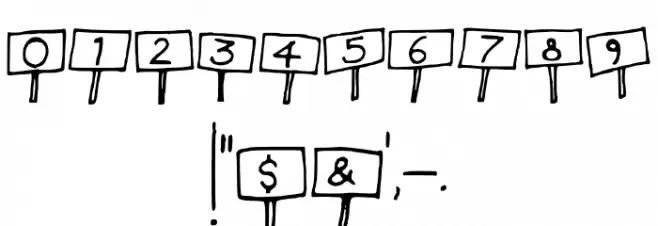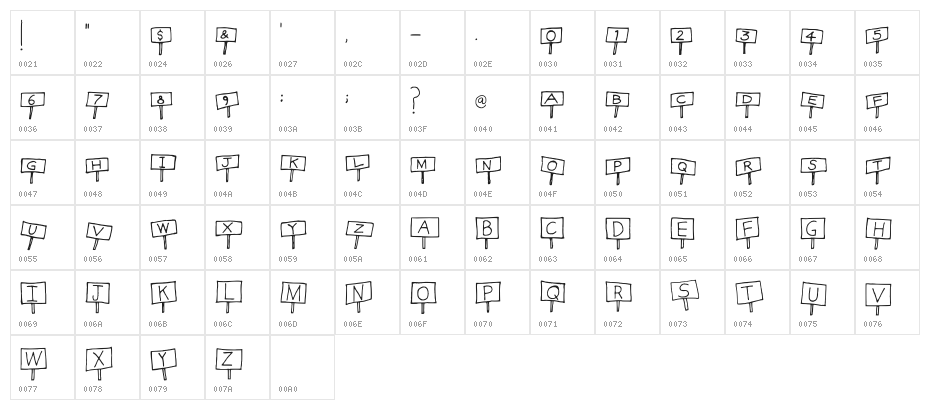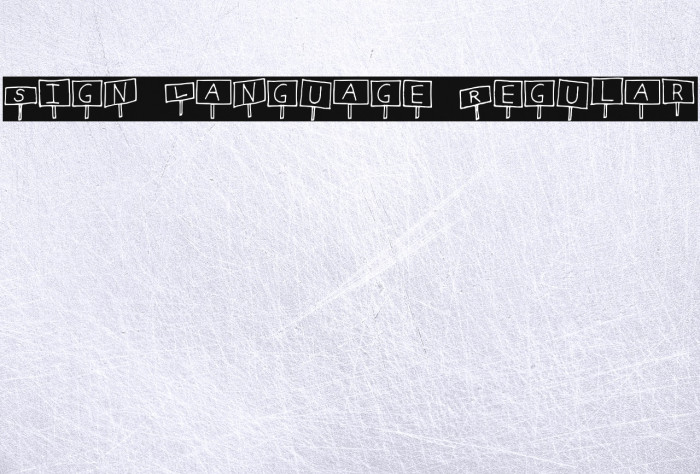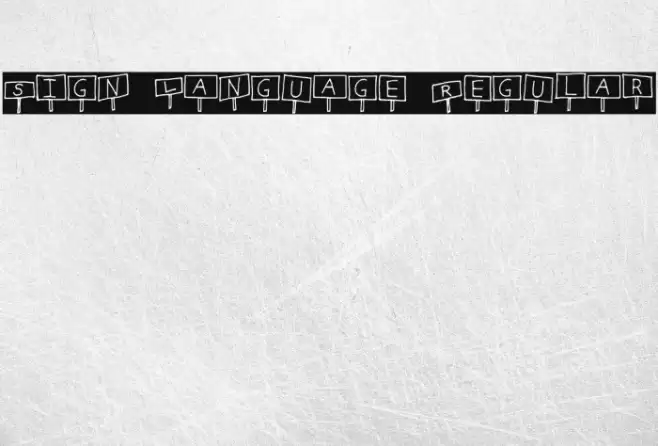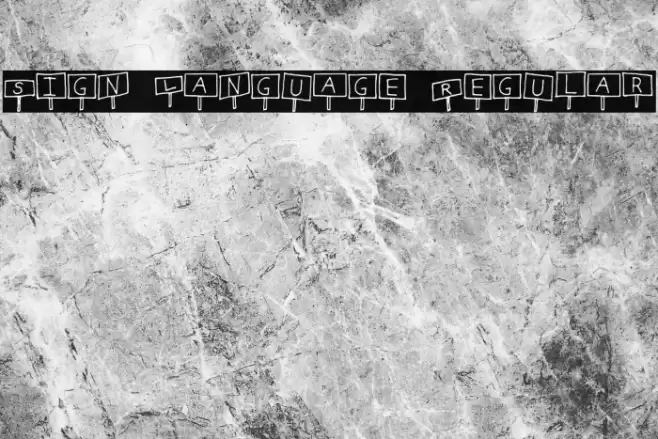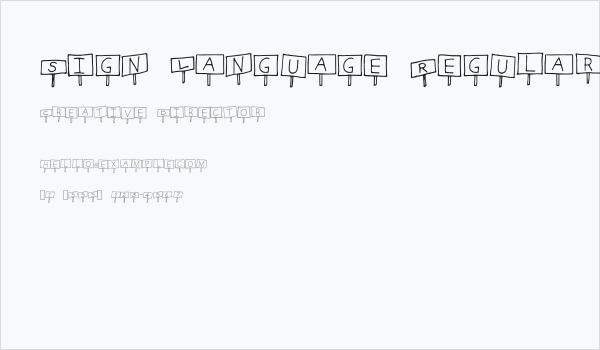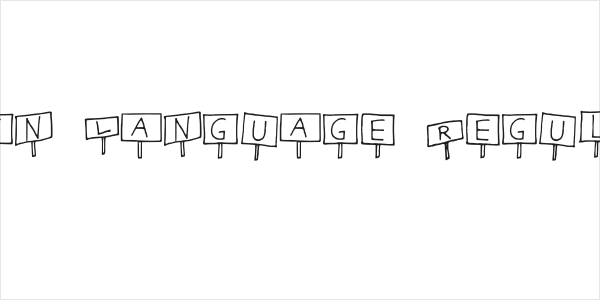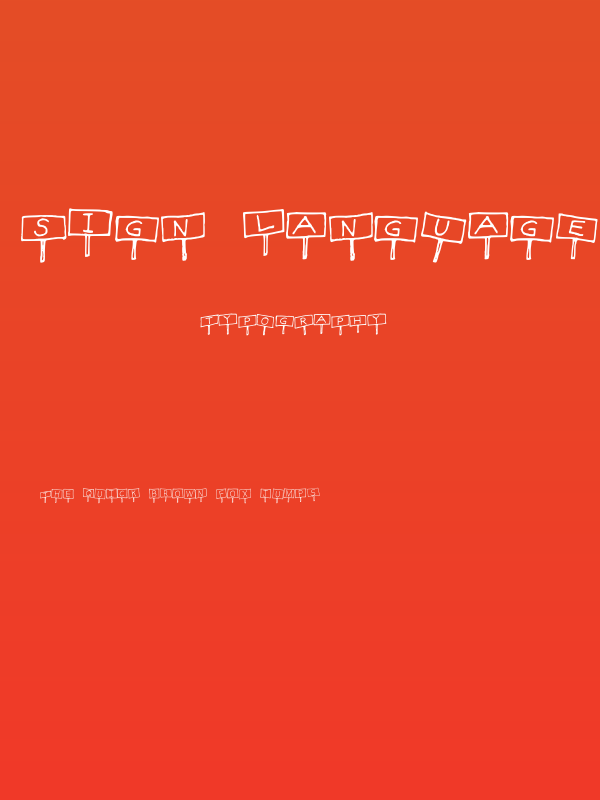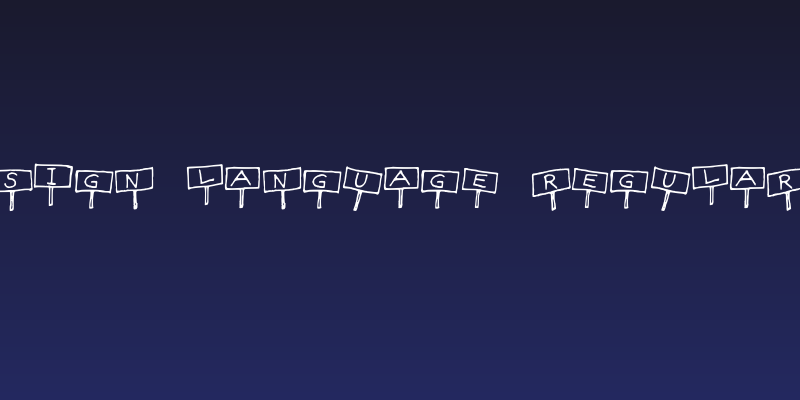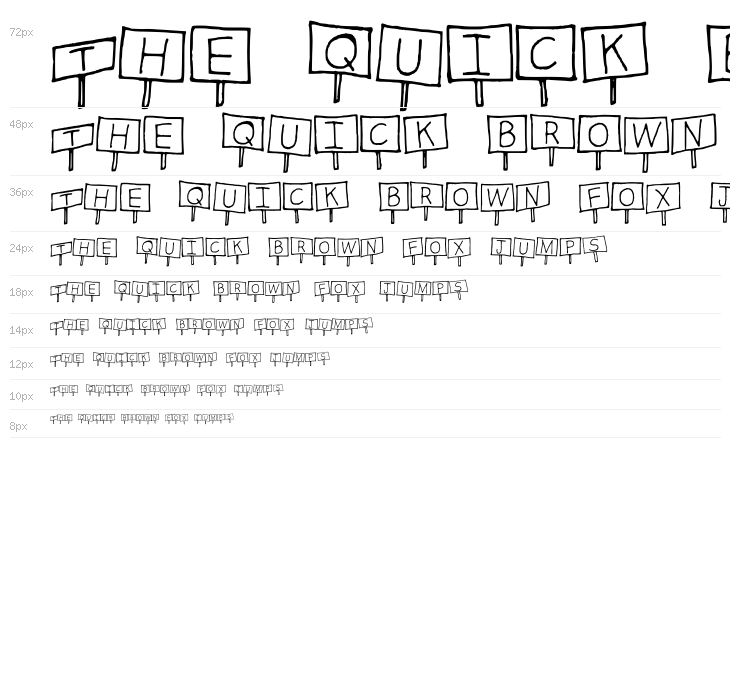
Sign Language Regular Font
Sign Language Regular Description
This font features a playful and quirky design, with each character appearing as though it is hand-drawn on a small sign or placard. The letters are uppercase and lowercase, with a consistent, bold outline that gives them a cartoonish appearance. The characters are slightly tilted, adding to the whimsical feel. The numbers and special characters follow the same style, maintaining uniformity across the font. This font is ideal for projects that require a fun and informal touch, such as children's books, playful posters, or creative invitations.
| Proposed Projects | Children's books, playful posters, creative invitations. |